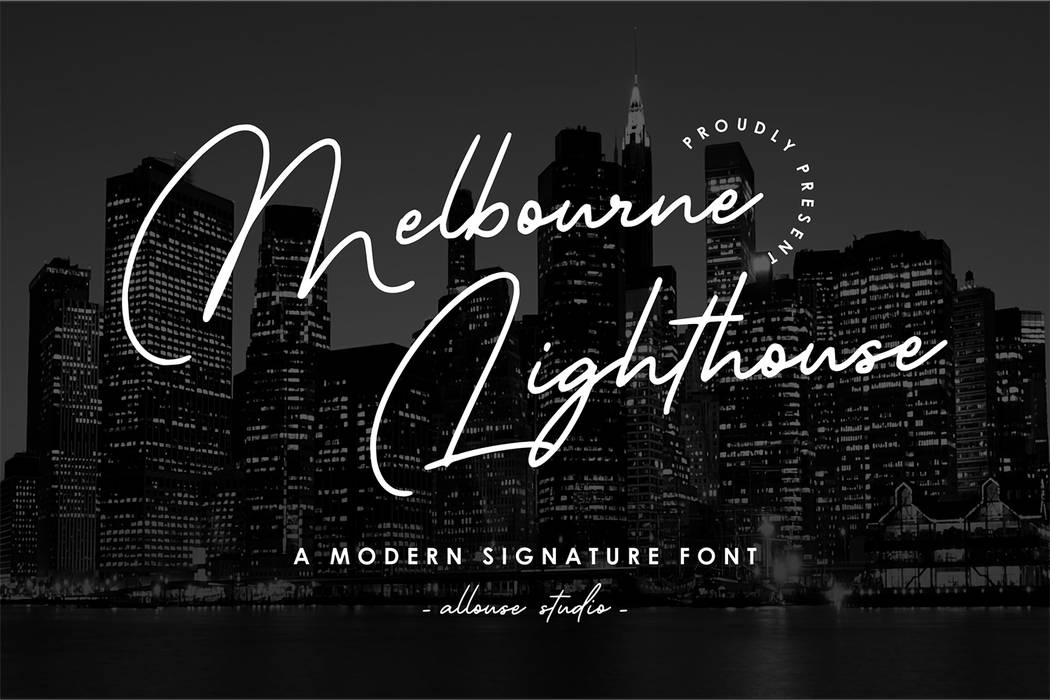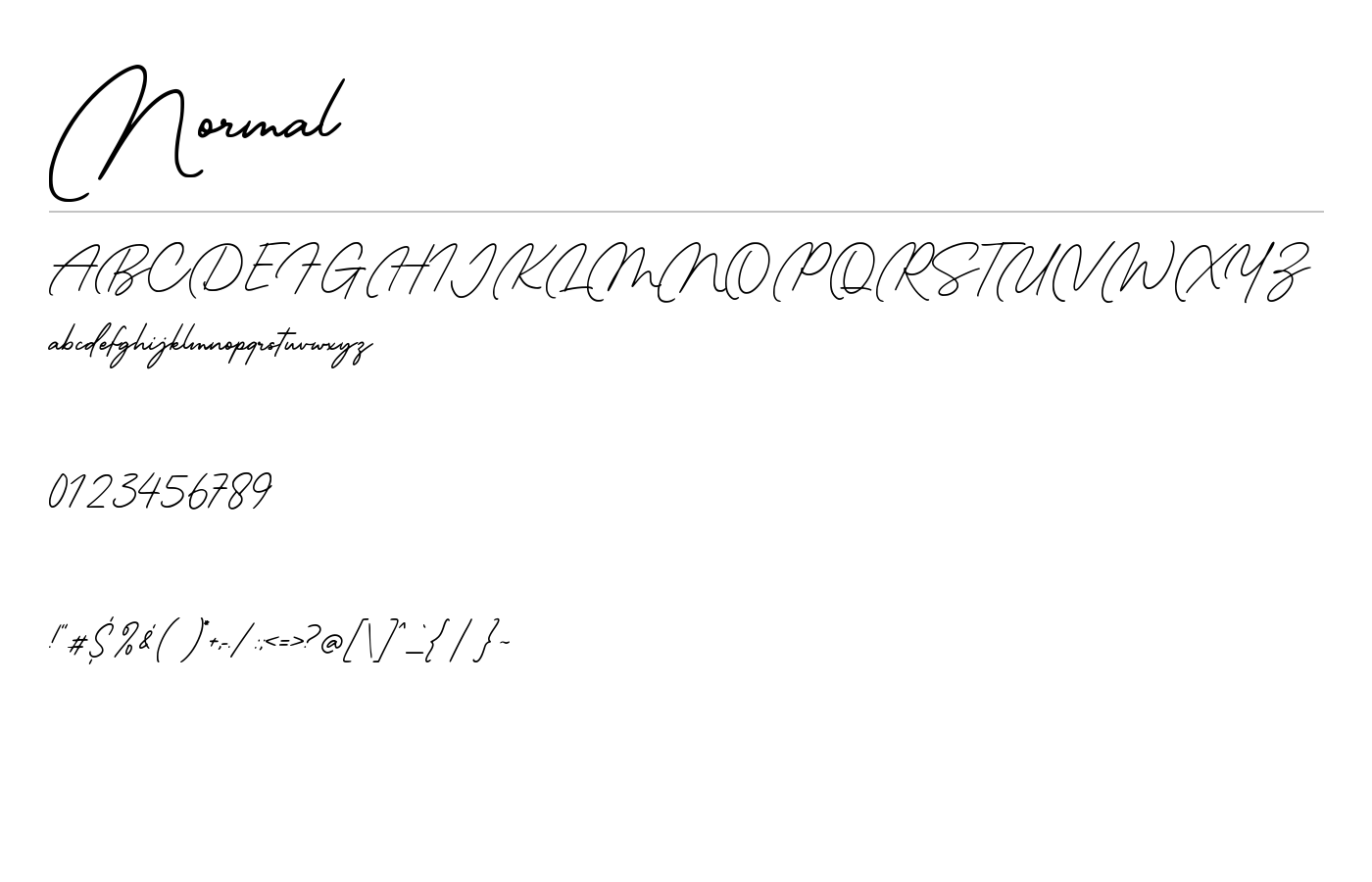
Melbourne Lighthouse is a delicate, handwritten script font characterized by its thin, flowing lines and elegant, natural strokes. Its airy and graceful letterforms create a refined and personal feel, making it perfect for invitations, branding, and any design that seeks a touch of sophistication and warmth. This font works well in contexts where a stylish yet approachable handwritten look is desired.
Melbourne Lighthouse Font
About Melbourne Lighthouse Font